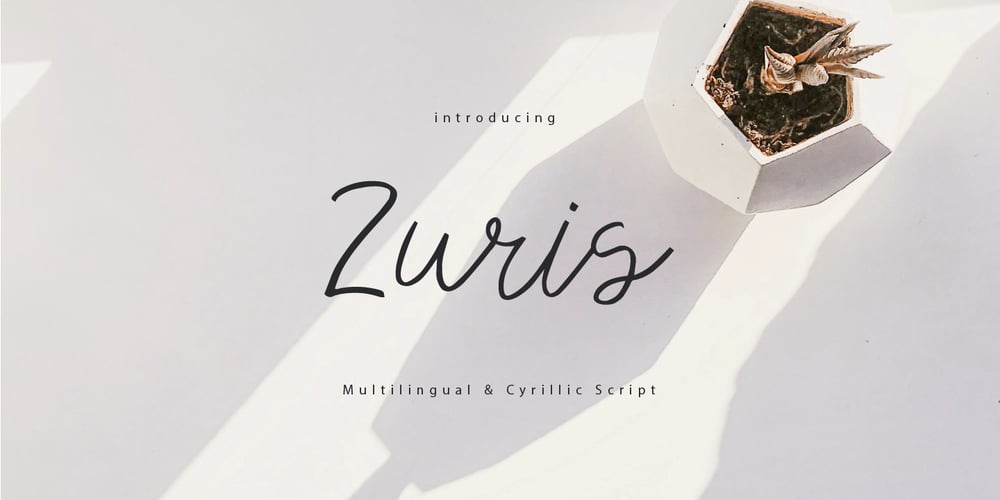
Zuris
Zuris font
Zuris Font Family was designed by Hleb Zhyhunou and published by Mr. Typeman. Zuris contains 1 styles and family package options. Say hello to my new Zuris Font, a modern handwritten script, wich simulates natural handwriting. Zuris is perfect for branding, product packaging, wedding invitations, cards and so on. If you want to add a certain charm, appeal and allure in your projects, Zuris is just what you need.